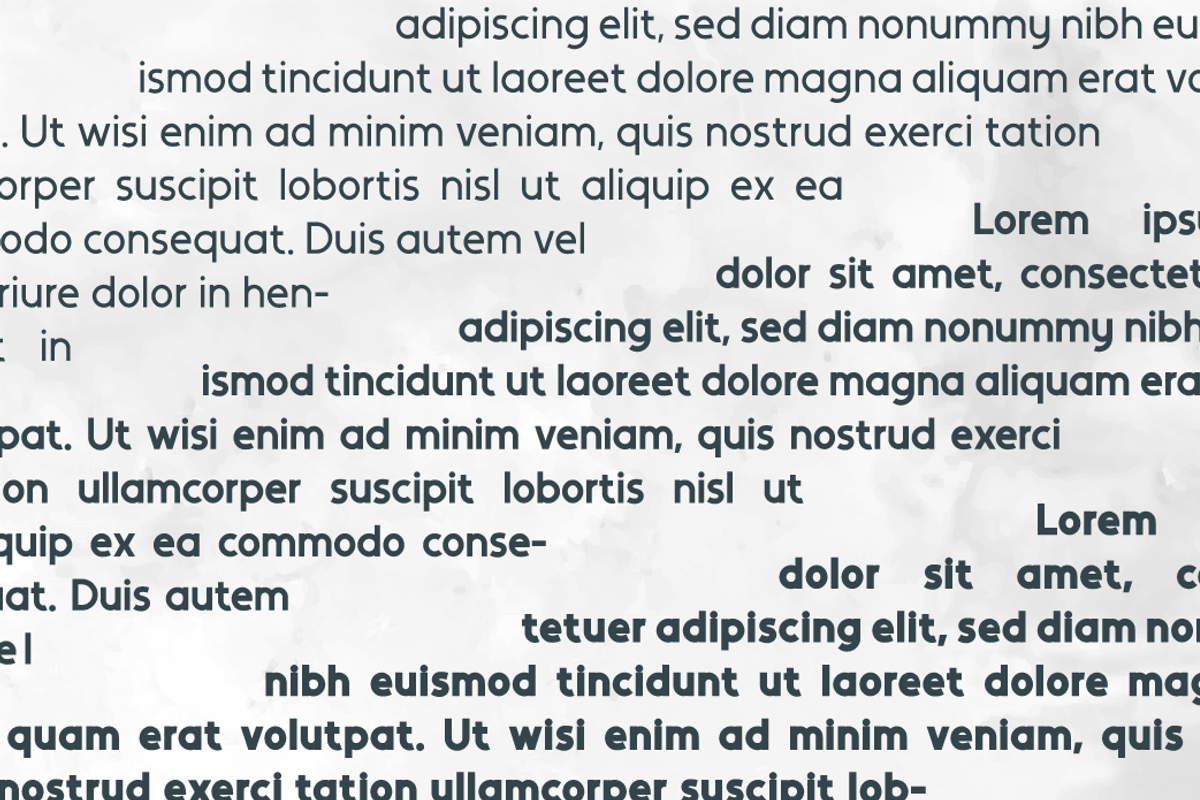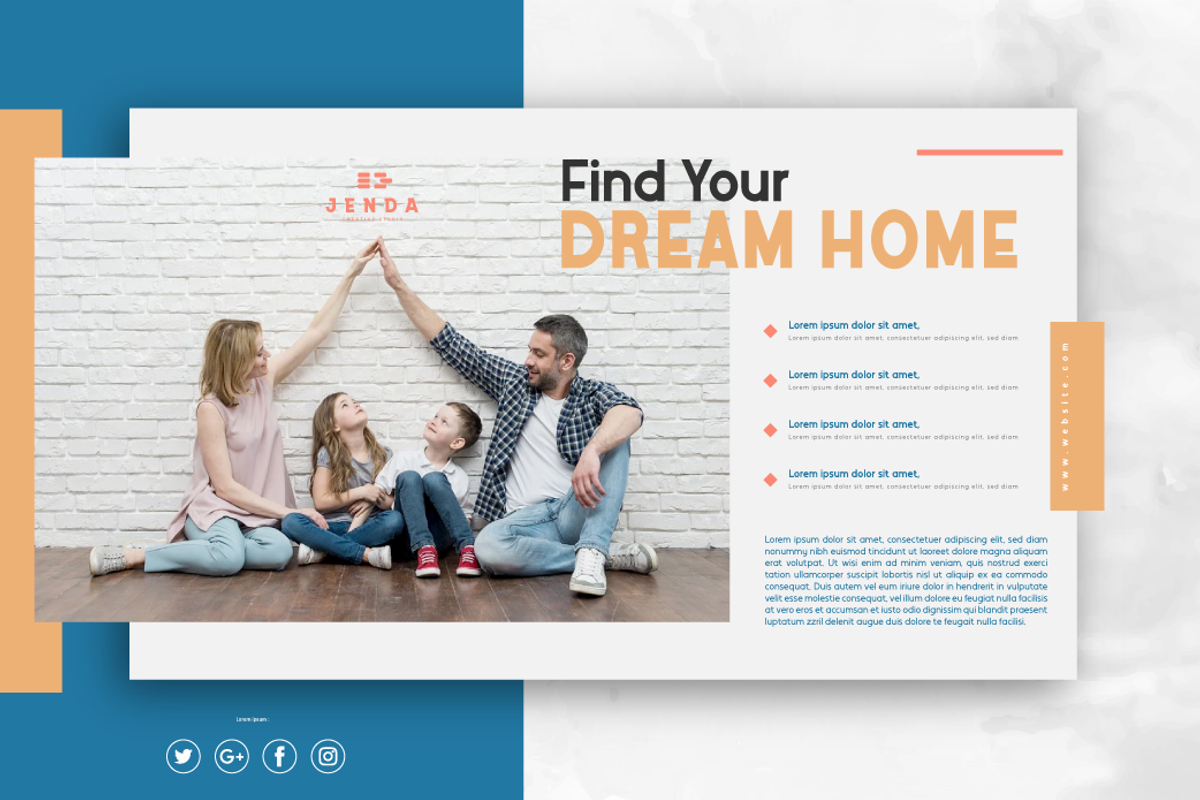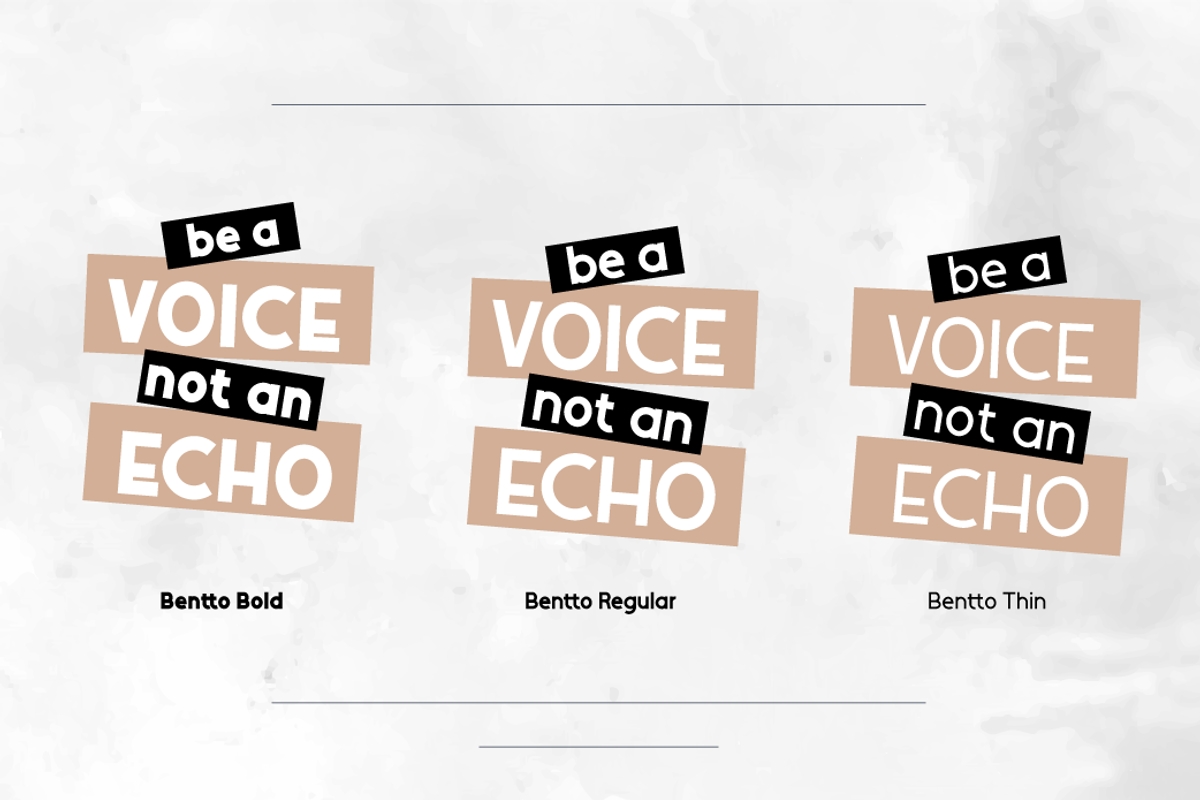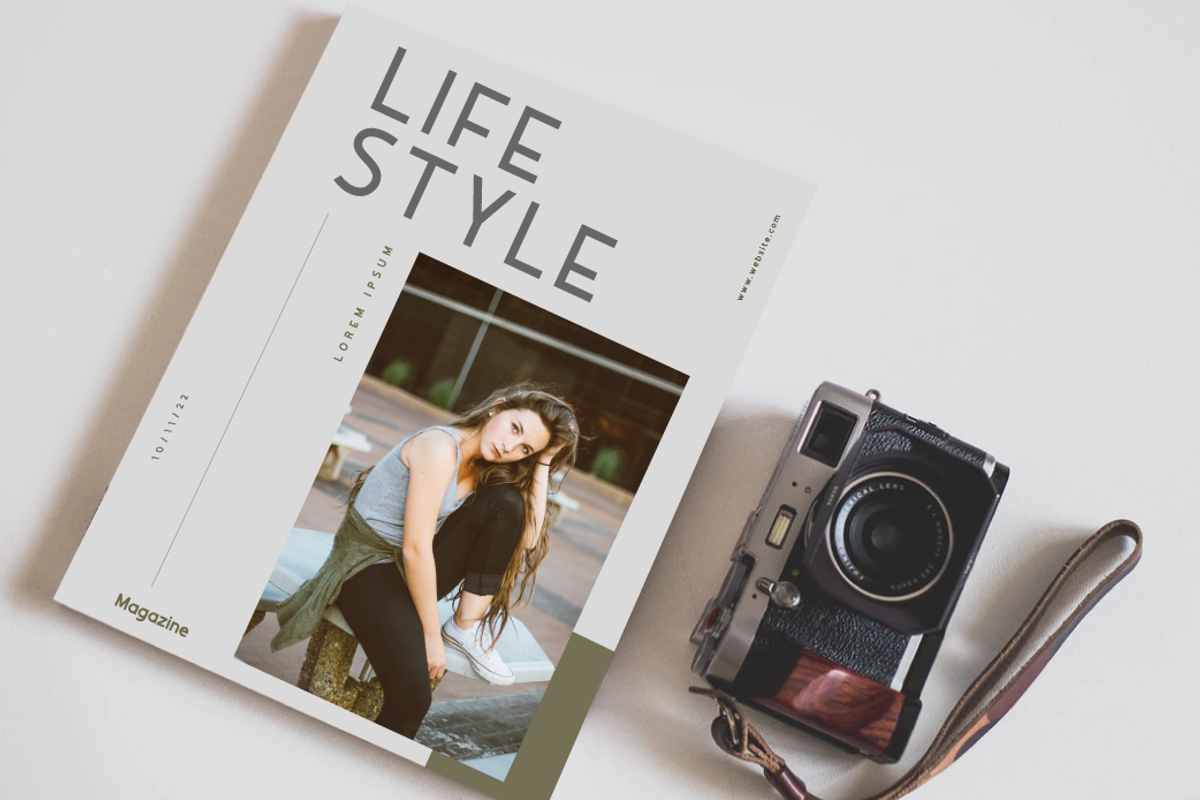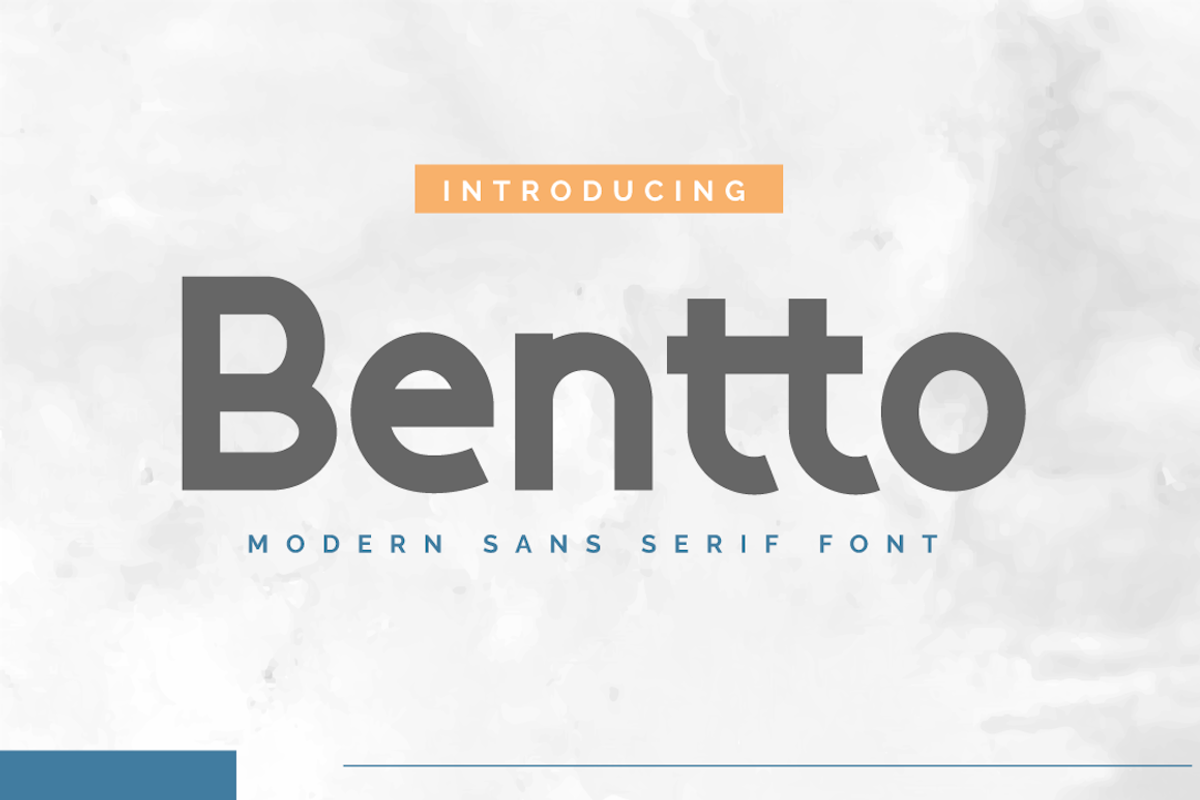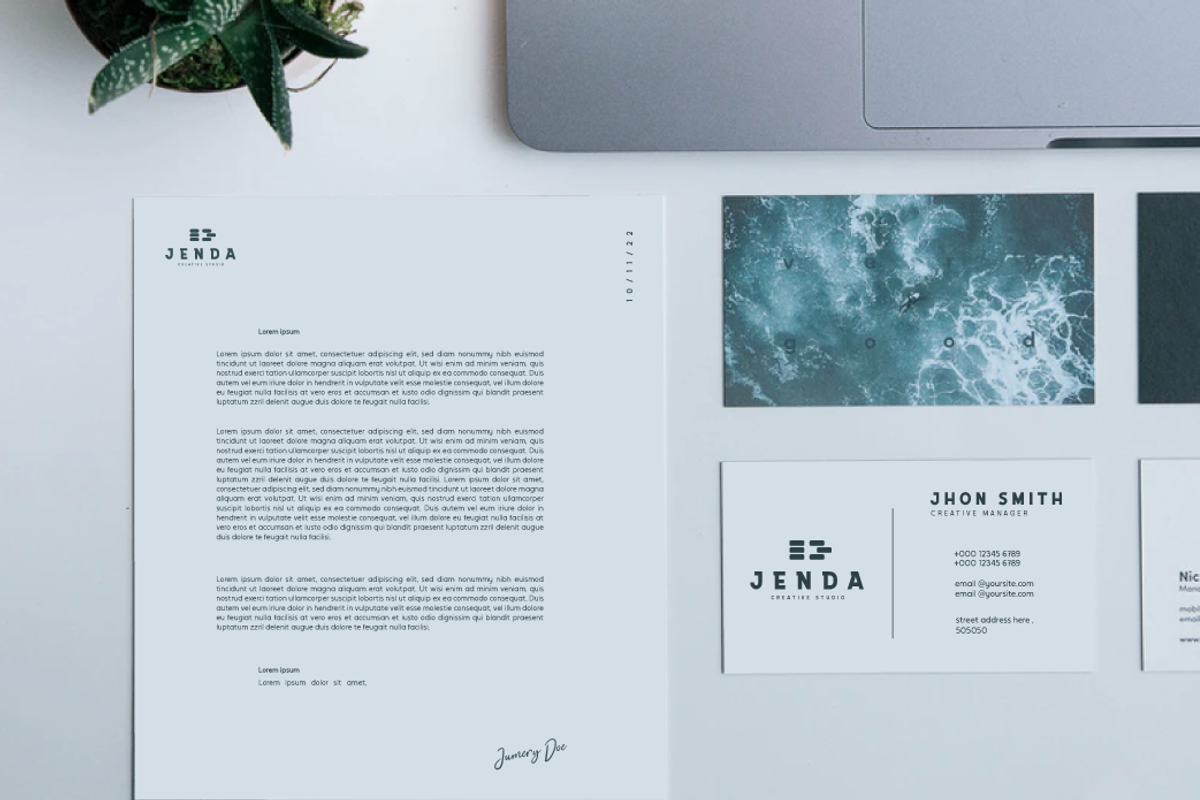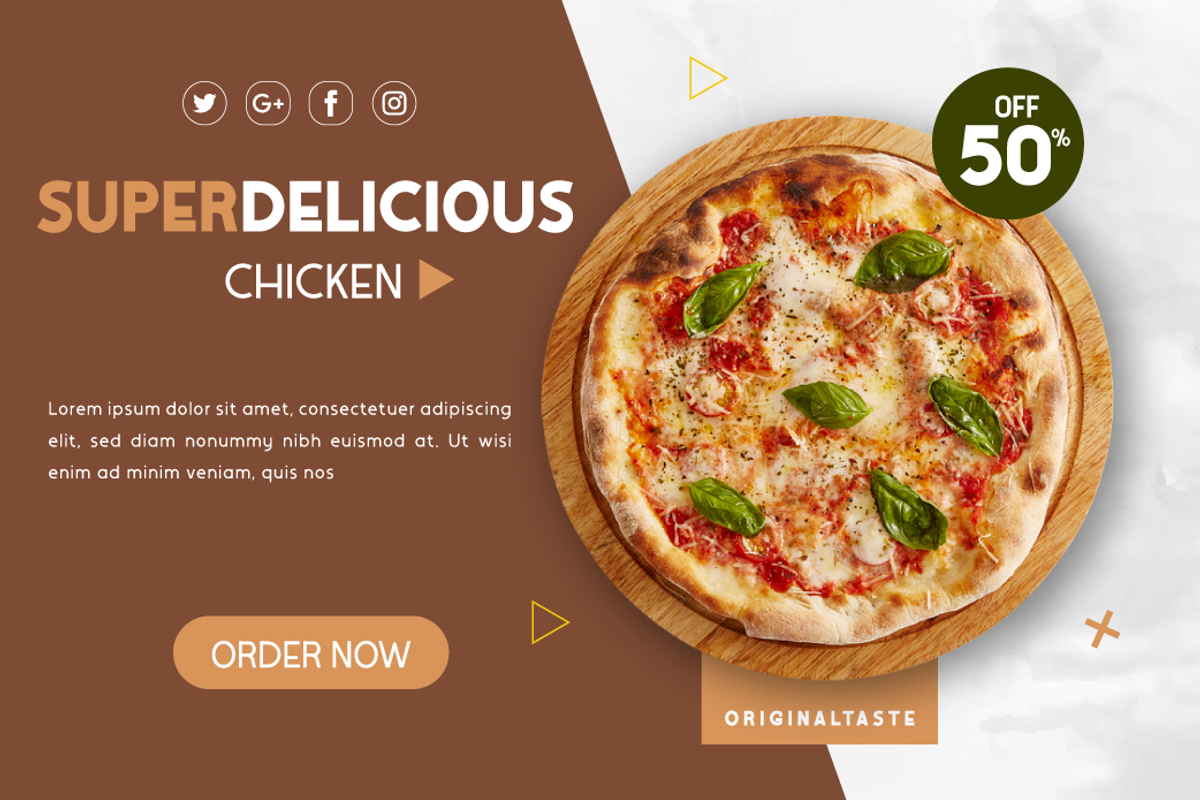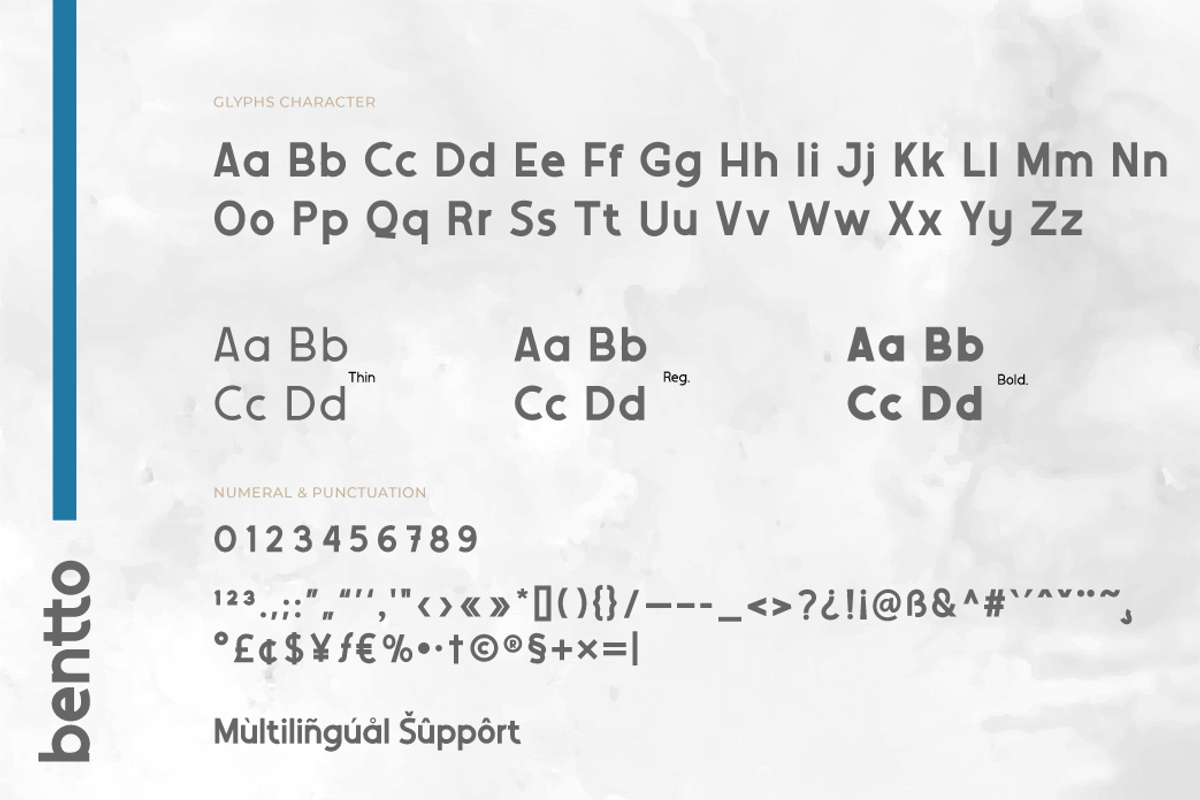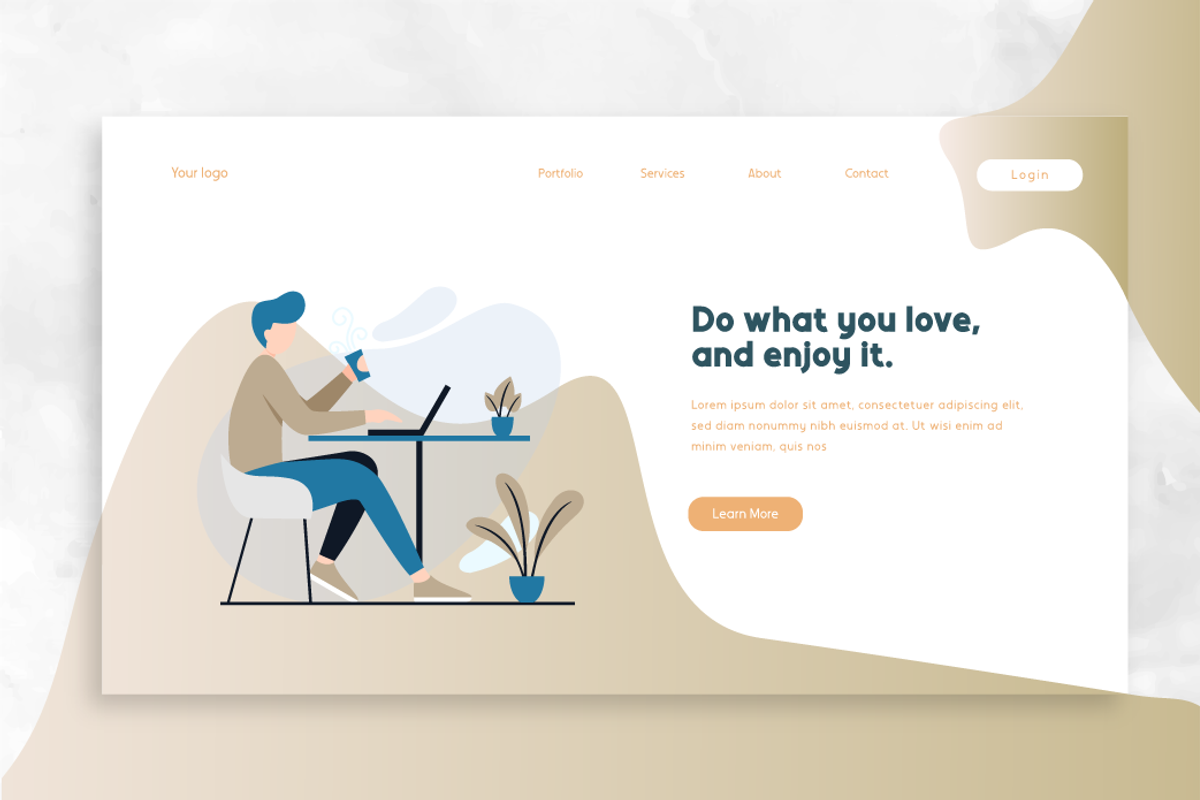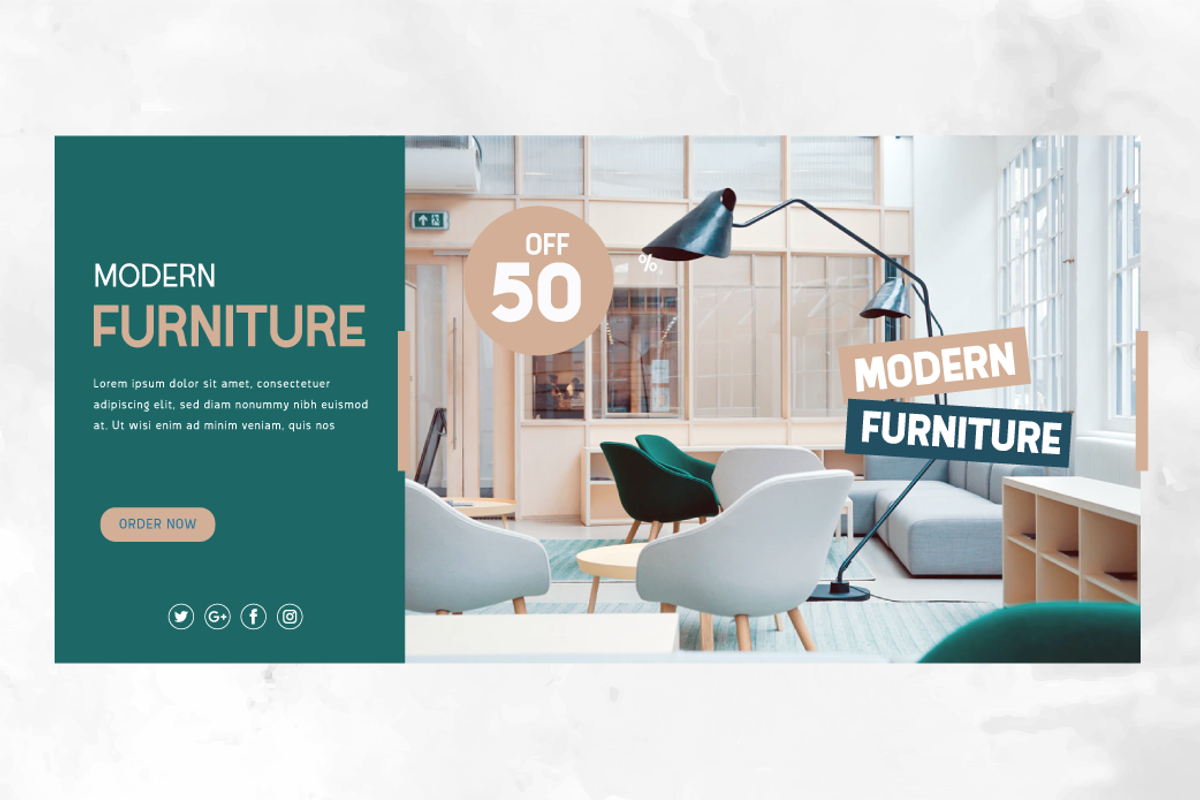
Bentto
Introducing our sans serif font, Named Bentto. This simple, dynamic and exotic themed font has a character that is suitable for you to use in formal and informal design themes, both feminine and masculine design characters. this font will look beautiful.
This font is very suitable as text with displays for various kinds of branding, advertisements, posters, banners, packaging, news headlines, magazines, websites, logo design, banners, social media design and of course you can use a lot more.